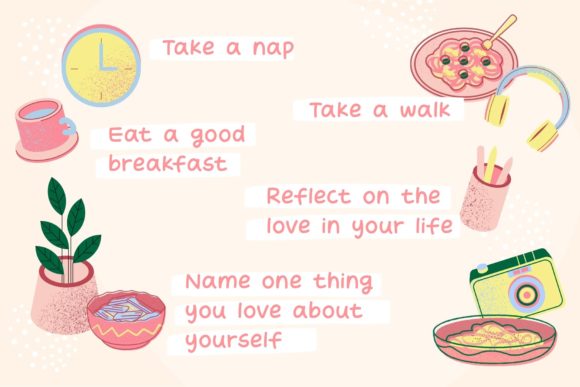
Simple Notes Font
db-ku.com - Script & Handwritten -- Simple Notes is a simple, new and cute handwritten font. You can use this font in various projects such as blog posts, logos, branding, digital planner, invitations, digital bullet journal, greeting cards, planners, photo albums, decorations and much more.